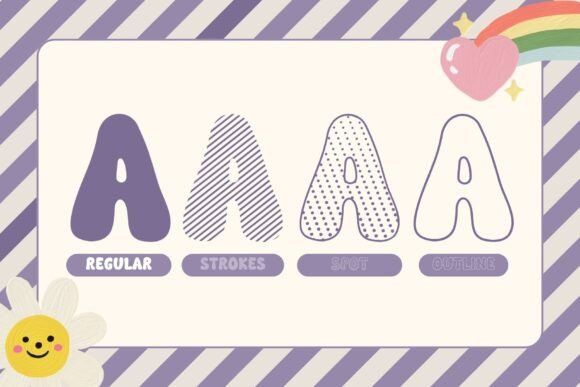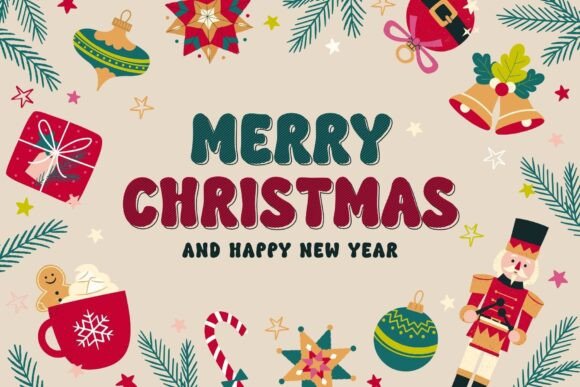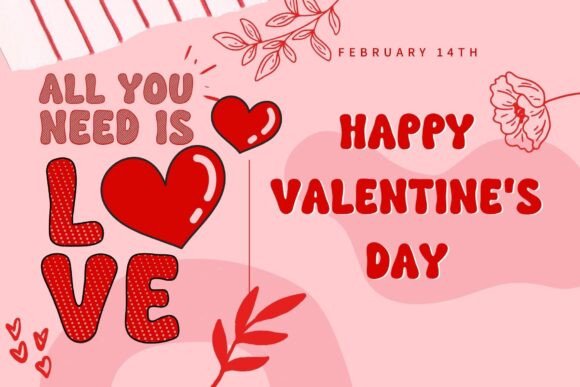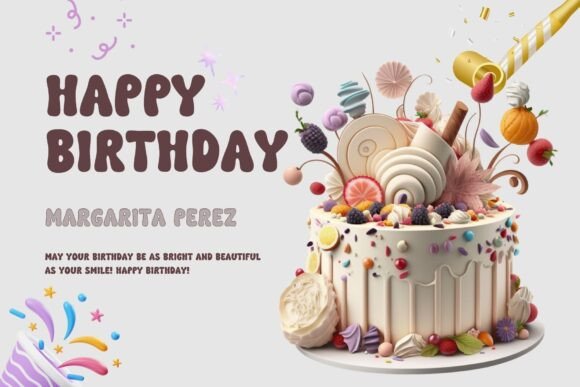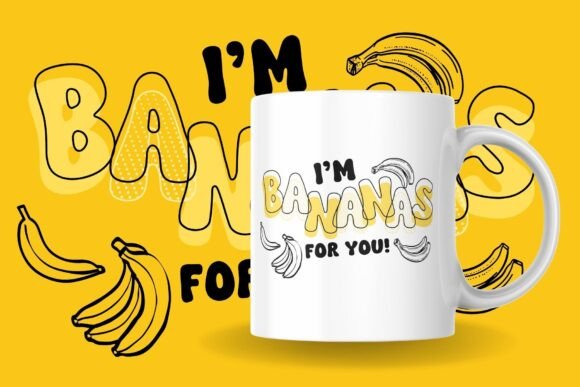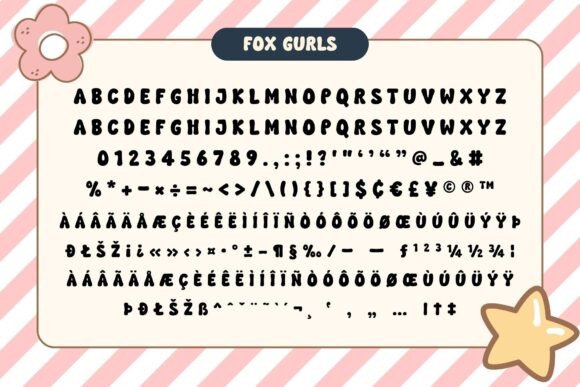
The Ultimate Guide to Fox Gurls Font: Adding a Captivating Touch to Your Designs
I’ll never forget the time I was working on a project for a client who wanted a bold, playful font to capture the essence of their brand. I scoured the internet, trying out font after font, but nothing seemed quite right. That was until I stumbled upon Fox Gurls Font. With its vibrant and expressive design, it was love at first sight! In this article, I’ll share my experience with Fox Gurls Font, its features, and how to make the most of it in your designs.
What is Fox Gurls Font?
Fox Gurls Font is a 4-font style display font that adds a captivating and energetic touch to your designs. Perfect for use in publications, menus, logos, business cards, or even printed on t-shirts, these fonts exude uniqueness. Its main feature is its vibrant and expressive design, allowing you to create attention-grabbing headlines, t-shirt typography, banners, product labels, and more.
Honest Review
So, what do I love about Fox Gurls Font? Here are a few things that make it stand out:
• ✨ Unique and playful design: Fox Gurls Font has a one-of-a-kind look that’s sure to grab attention.
• ✅ Versatile: With four font styles to choose from, you can use Fox Gurls Font for a wide range of projects.
• 💡 Easy to read: Despite its playful design, Fox Gurls Font is surprisingly easy to read, even in smaller sizes.
Of course, no font is perfect, and Fox Gurls Font has a few quirks:
• 🤔 Limited use in formal designs: Fox Gurls Font is best suited for playful, creative projects. It may not be the best choice for formal designs or professional documents.
• ⚠️ Some characters may not work well in small sizes: While Fox Gurls Font is generally easy to read, some characters may not work well in very small sizes.
Fox Gurls Font was created by a team of designers who wanted to create a font that would add a touch of playfulness and energy to designs. Inspired by the beauty of nature and the creativity of the digital world, Fox Gurls Font is the perfect choice for designers who want to make a statement.
Q: What type of designs is Fox Gurls Font best suited for?
A: Fox Gurls Font is perfect for playful, creative projects like posters, flyers, and social media graphics.
Q: Is Fox Gurls Font easy to read?
A: Yes, Fox Gurls Font is surprisingly easy to read, even in smaller sizes.